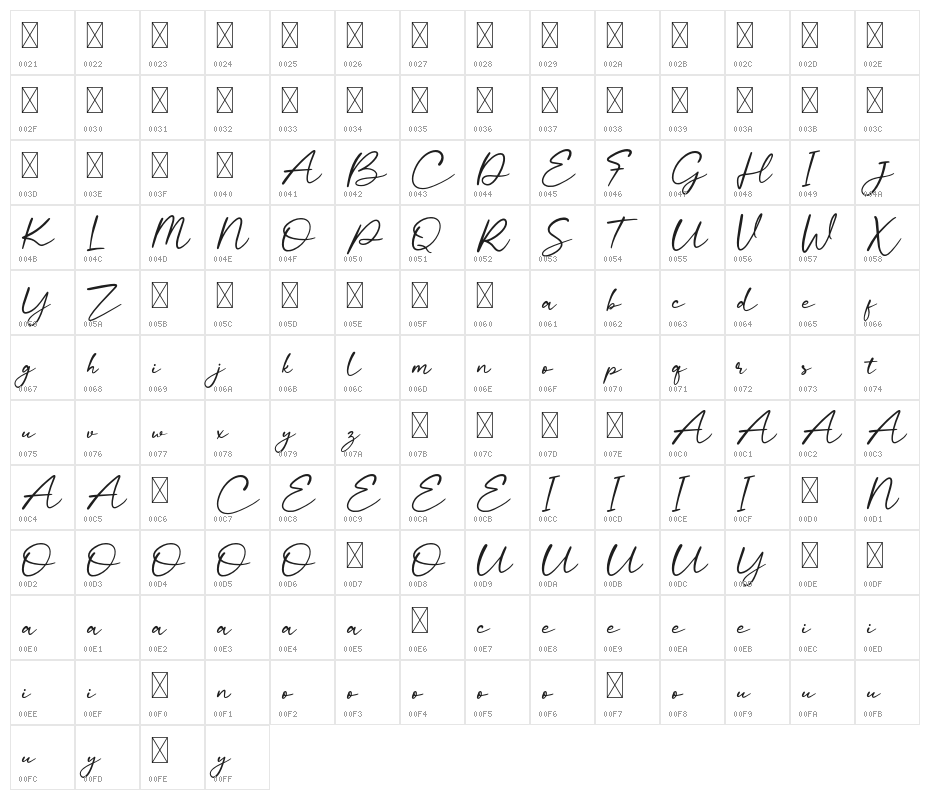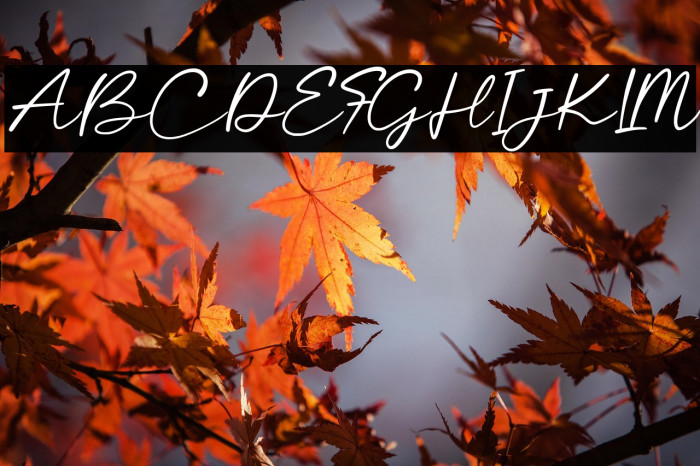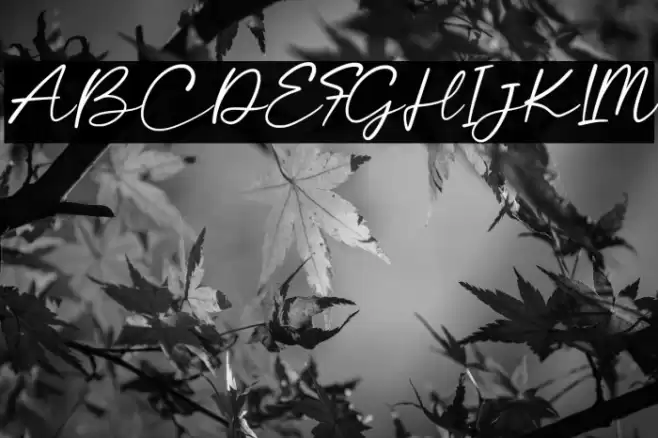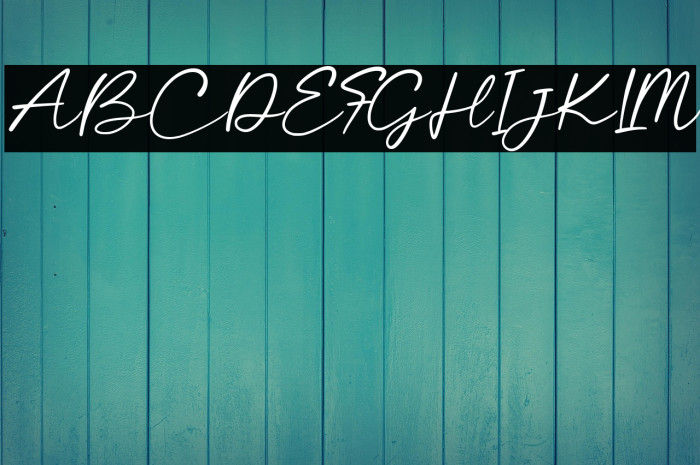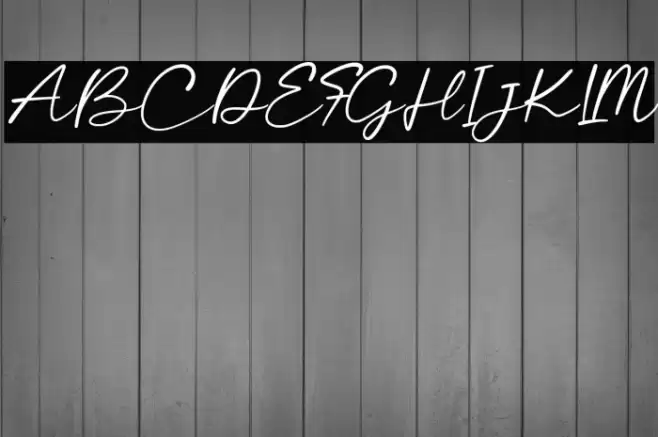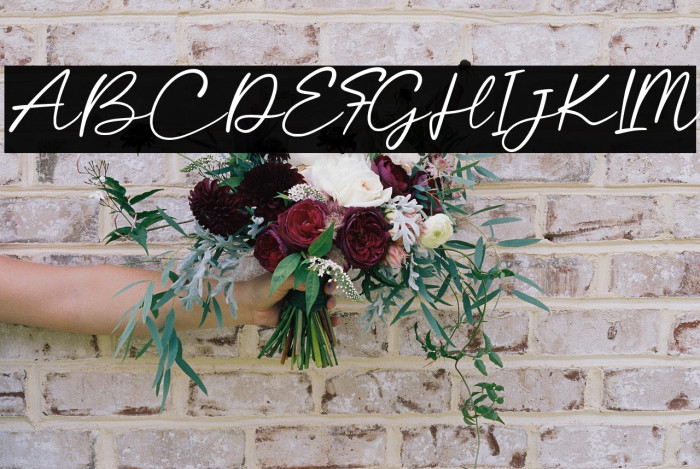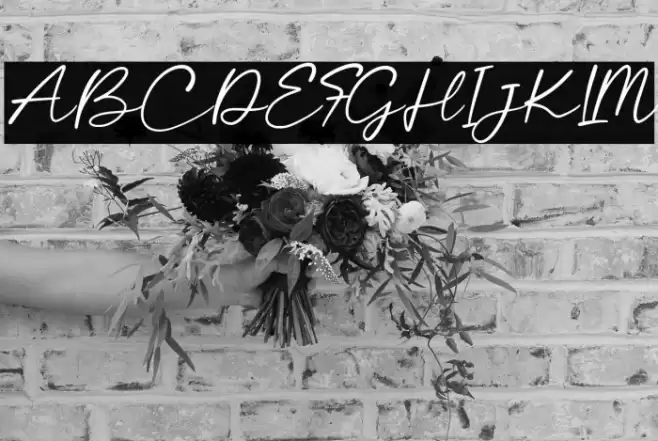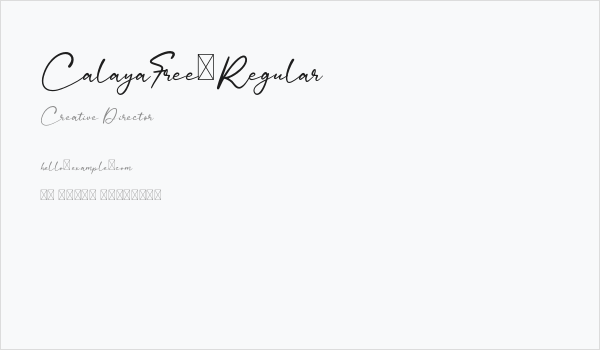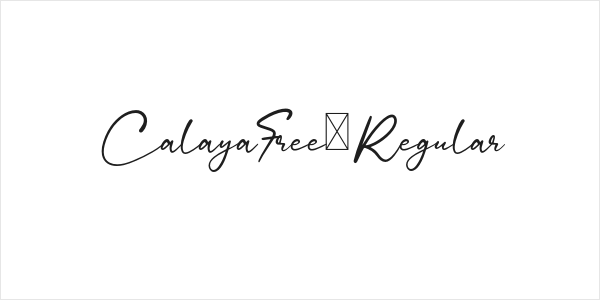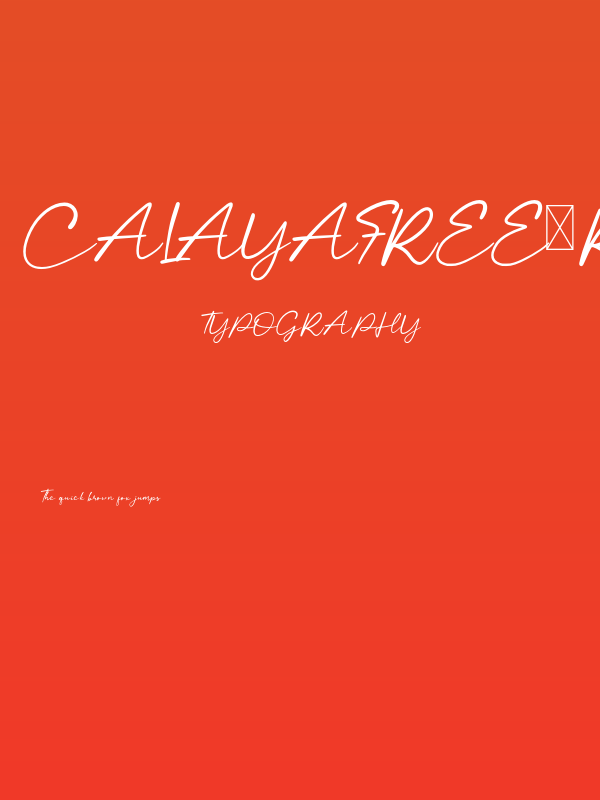
CalayaFree-Regular Font
CalayaFree-Regular Description
This font features an elegant and flowing script style, characterized by its smooth, cursive letterforms that mimic natural handwriting. The uppercase letters are slightly more elaborate, with graceful loops and curves, while the lowercase letters maintain a consistent flow, enhancing readability. The font exudes a sense of sophistication and charm, making it suitable for a variety of design projects. The characters are well-spaced, allowing for clear legibility even in smaller sizes. Its overall aesthetic is both modern and timeless, offering versatility in its application.
| Overall Style | Elegant, Modern |
| Proposed Projects | Ideal for wedding invitations, greeting cards, branding, and elegant logo designs. |